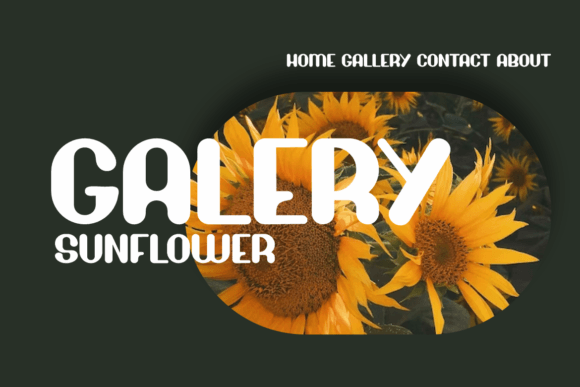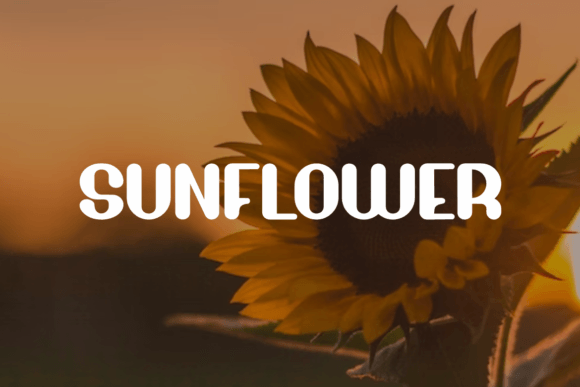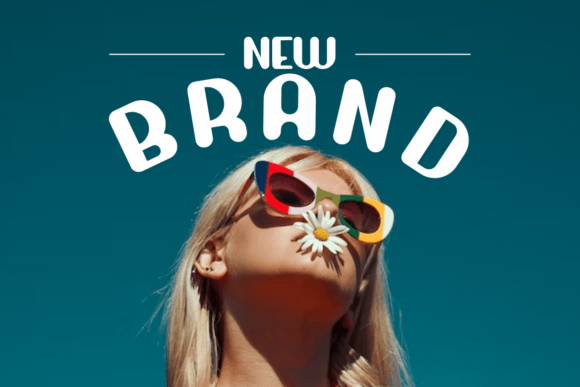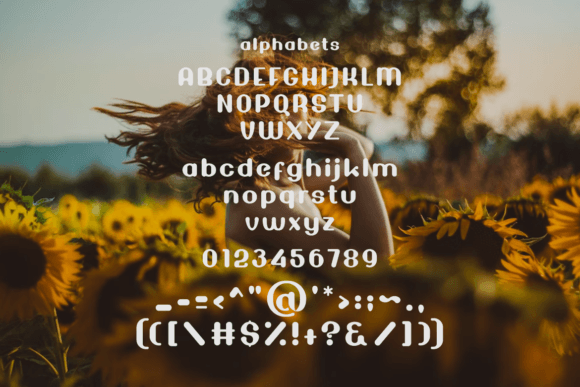
Introduction to Karin Collection Font
Karin Collection is a classy and elegant sans serif font.
Karin Collection Font offers exceptional quality and versatility, making it a valuable addition to your design toolkit. Whether you’re creating for personal projects or commercial use, Karin Collection Font delivers professional results.